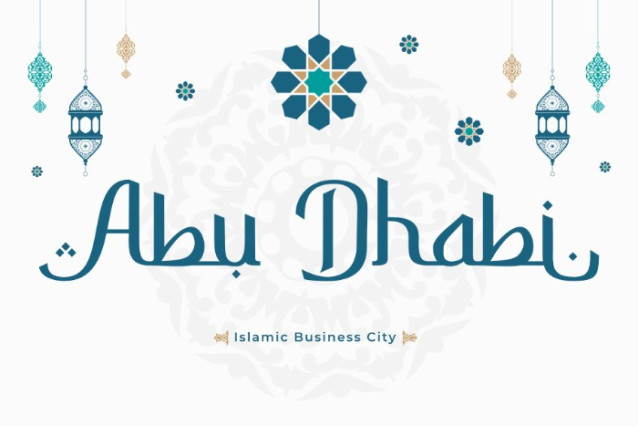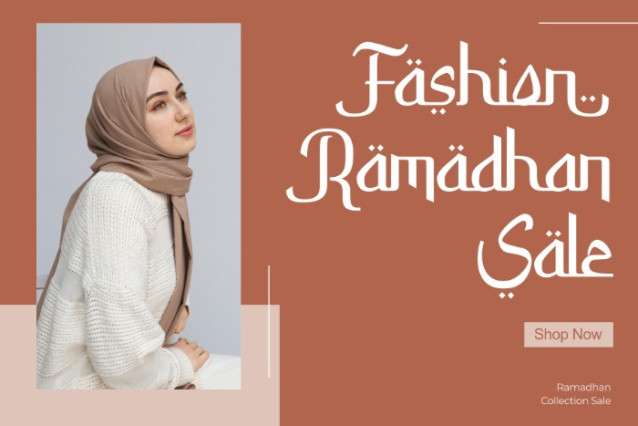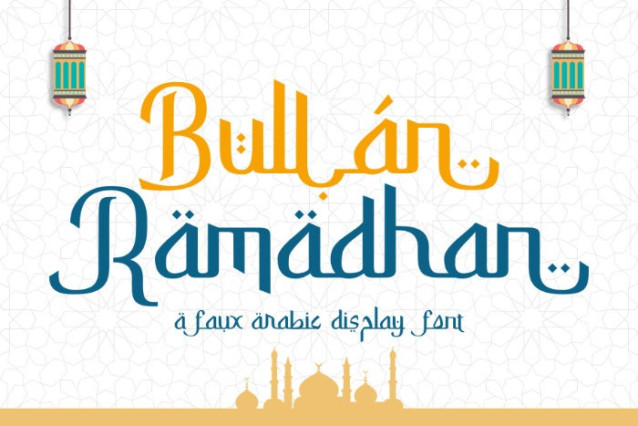
Bullan Ramadhan Font
Bullan Ramadhan Font is a clean, modern, and faux Arabic display font perfect for branding, logos, business cards, websites, posters, flyers, brochures, and many more. Bullan Ramadhan is a great font for anyone looking for a font with an Arabic feel.